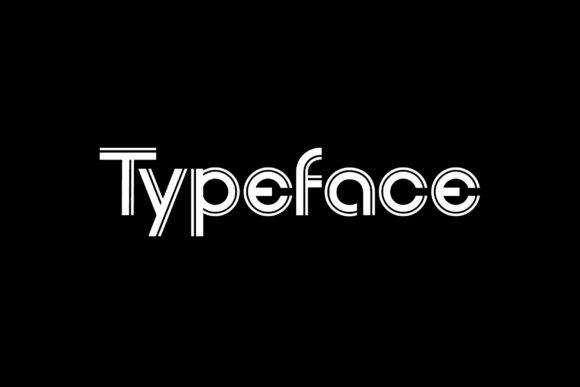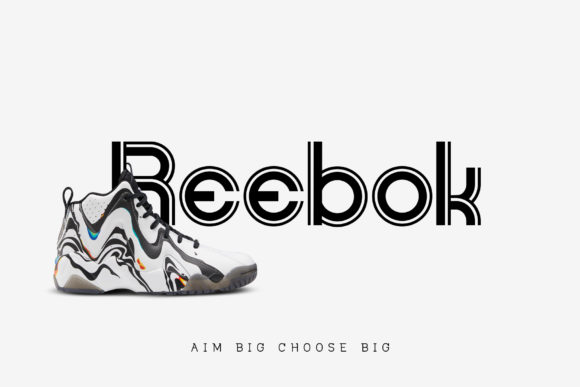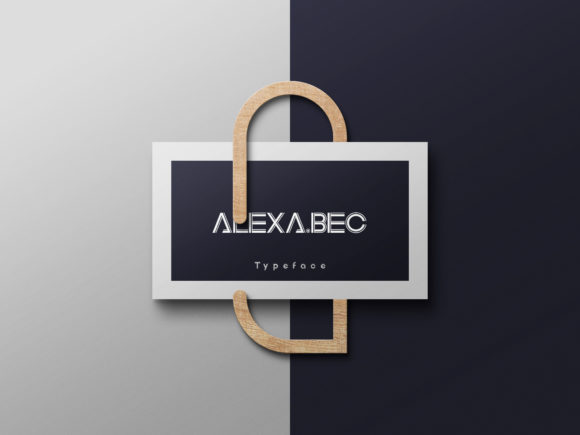
Introduction to Alexa.bec Font
Have you ever been working on a creative project, pouring your heart and soul into it, and then suddenly, the perfect font pops up, elevating your entire design to the next level? That’s exactly what happened to many designers when they stumbled upon the Alexa.bec Font. This stunning display font has been making waves in the design community, and for good reason.
As a valuable design resource, the Alexa.bec Font is expertly crafted to add a touch of sophistication and elegance to any project. Whether you’re working on a web design, business card, or any other creative endeavor, this font is sure to make your design stand out. With its high quality and versatility, it’s no wonder why designers are falling in love with the Alexa.bec Font.
One of the standout features of this font is its ability to work seamlessly with transparent backgrounds, making it perfect for designers who want to create visually striking designs. And the best part? The Alexa.bec Font is available for free download, making it an accessible and valuable addition to any designer’s toolkit.
Key Features of Alexa.bec Font
- High-quality design resource with a transparent background, ideal for creative projects that require a clean and modern look.
- Features a unique, modern design with clean lines and elegant typography, perfect for creating a professional and sophisticated look.
- Includes a range of font styles, including regular and bold weights, allowing for greater flexibility and customization in design projects.
- Perfect for use in a variety of design projects, including logos, branding, typography, and more, making it a valuable addition to any design resource library.
Honest Review: Alexa.bec Font
I recently stumbled upon the Alexa.bec Font and was excited to dive in and explore its features. As a designer, I’m always on the lookout for high-quality design resources that can elevate my creative projects.
Here are some things that I think work well with the Alexa.bec Font:
- ✨ The font is highly customizable, allowing for a range of styles and variations to suit different design needs.
- ✨ The transparent background feature is a game-changer, providing endless possibilities for creative layouts and designs.
However, I did encounter some limitations with the Alexa.bec Font:
- ⚠️ The font may not be suitable for all types of projects, particularly those requiring a more traditional or formal look.
- ⚠️ The font’s versatility can also be a double-edged sword, as it may be overwhelming for designers who prefer a more straightforward design process.
Overall, I think the Alexa.bec Font is a solid addition to any designer’s toolkit. Its high quality and versatility make it an excellent choice for creative projects, and the free download is a definite bonus. With a little practice and patience, designers can unlock the full potential of this design resource.
Alexa.bec Font is a high-quality design resource perfect for creative projects requiring a unique touch. With its transparent background and elegant design, it’s a must-have for designers and artists.
For optimal results, use the Alexa.bec Font in combination with a high-quality image or graphic. This font is perfect for creating invitations, social media graphics, and other creative projects. You can also use it to create a unique and elegant logo or brand identity.